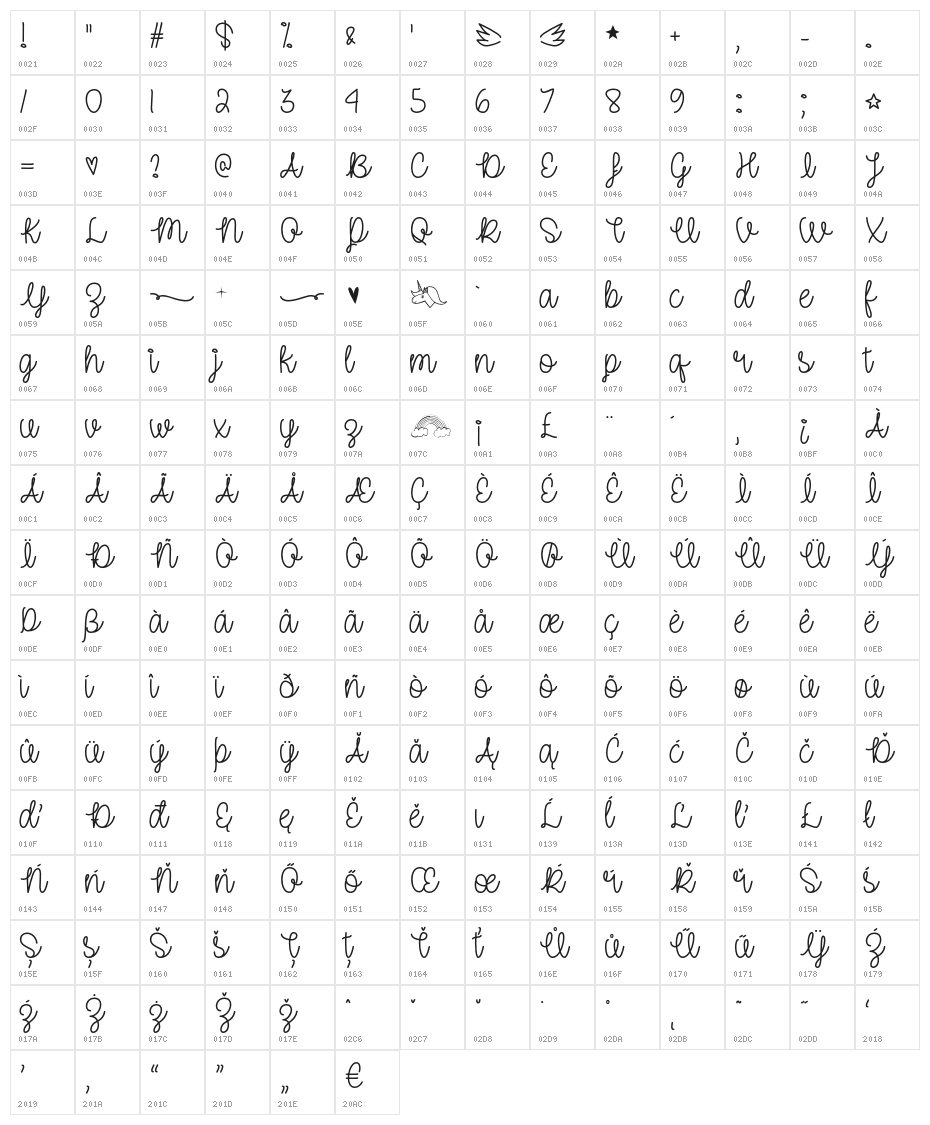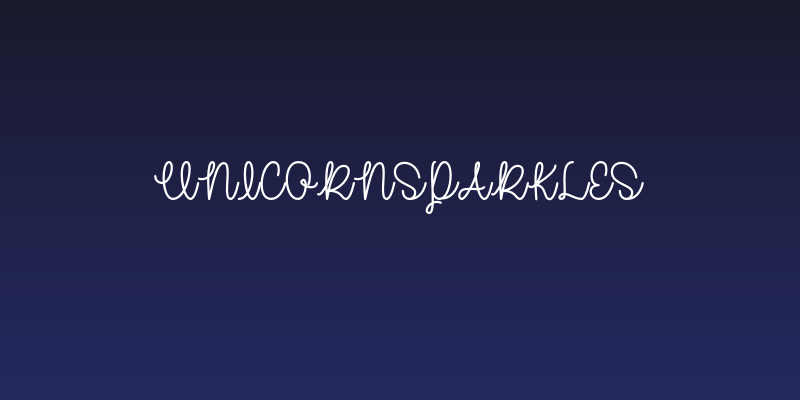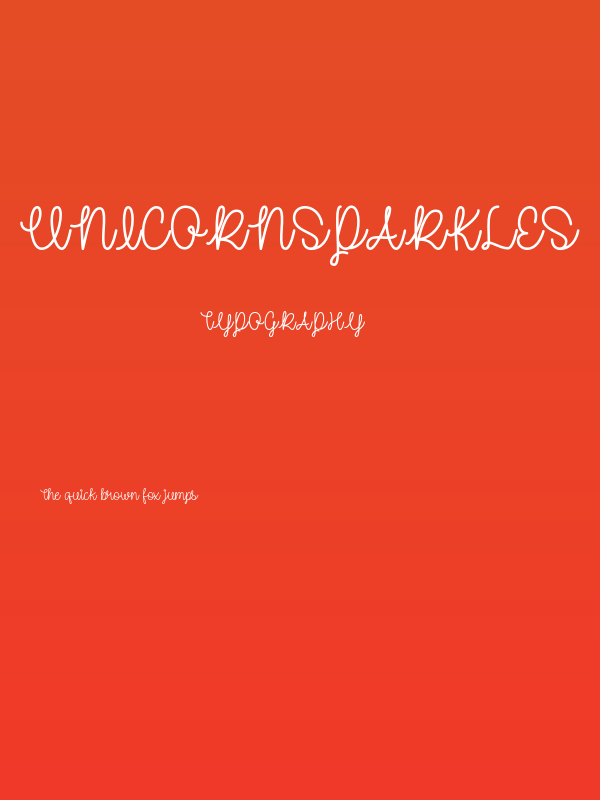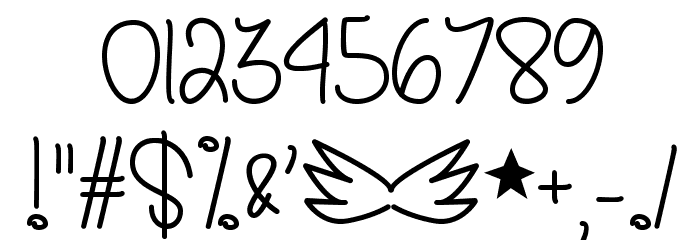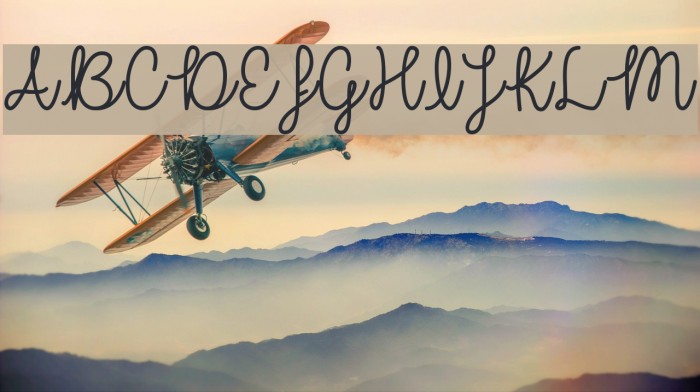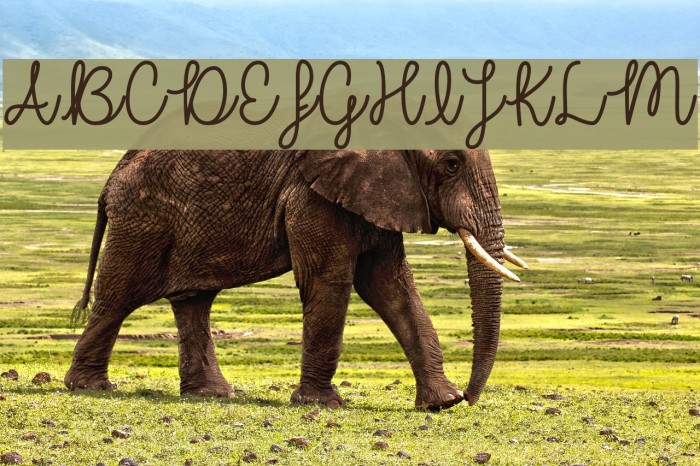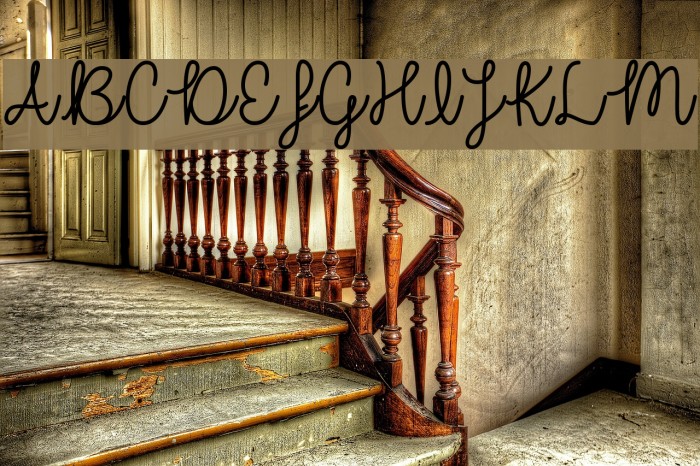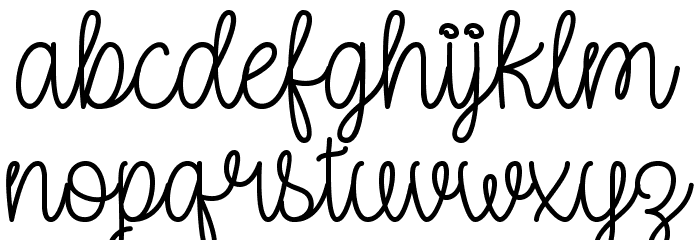
UnicornSparkles Font
This whimsical and playful font features a handwritten style with a smooth, flowing script. The uppercase letters are characterized by their looping, cursive design, while the lowercase letters maintain a consistent, rounded appearance. The numbers are clear and easy to read, matching the playful aesthetic of the letters. Special characters include unique symbols like wings and stars, adding a touch of fantasy and creativity. The overall design is light-hearted and perfect for projects that require a personal, friendly touch.
| Proposed Projects | Ideal for children's book covers, playful branding, greeting cards, and creative invitations. |